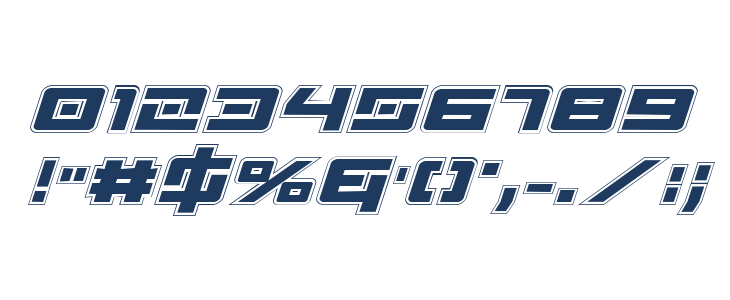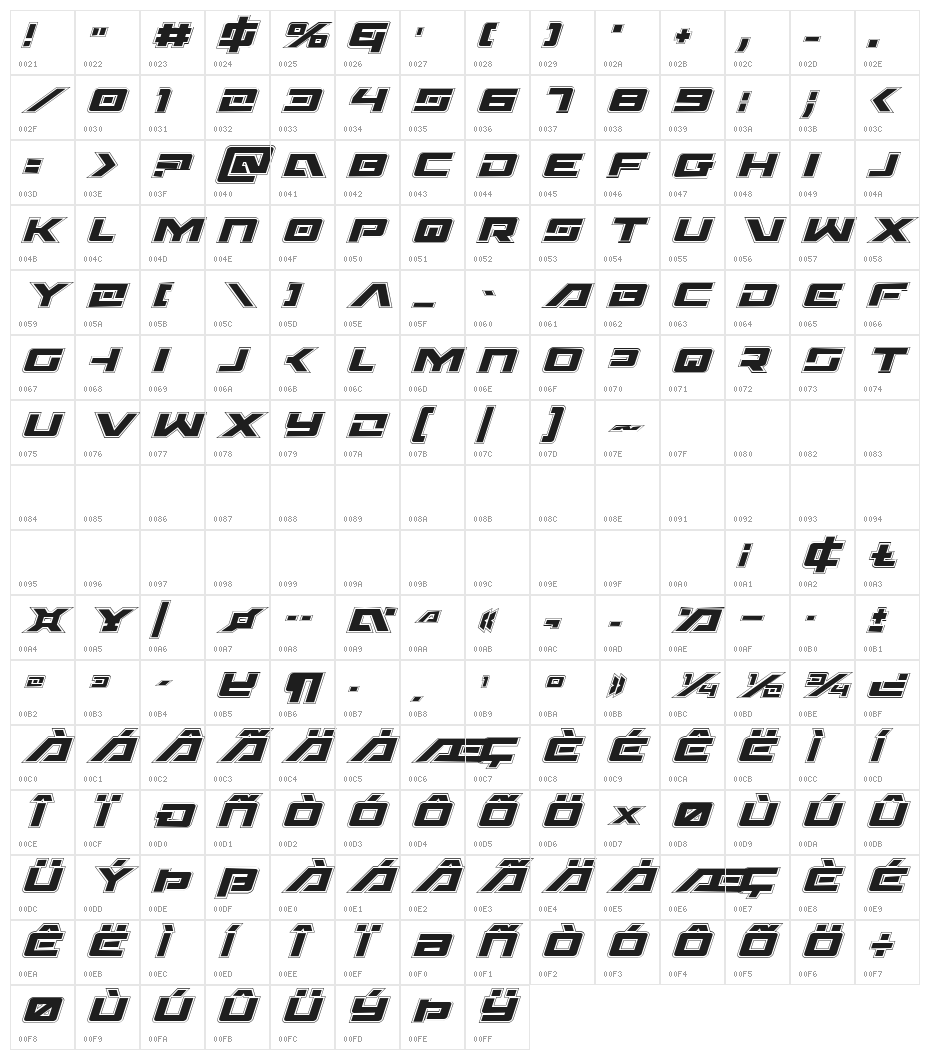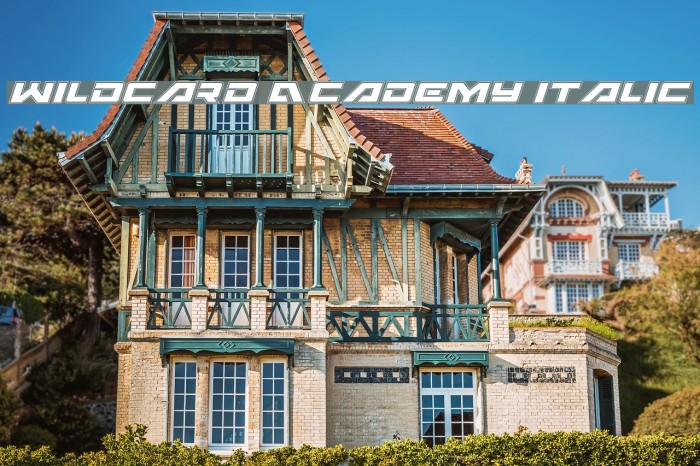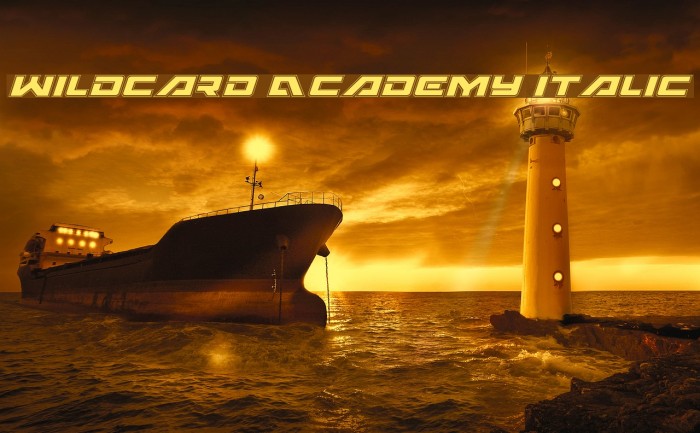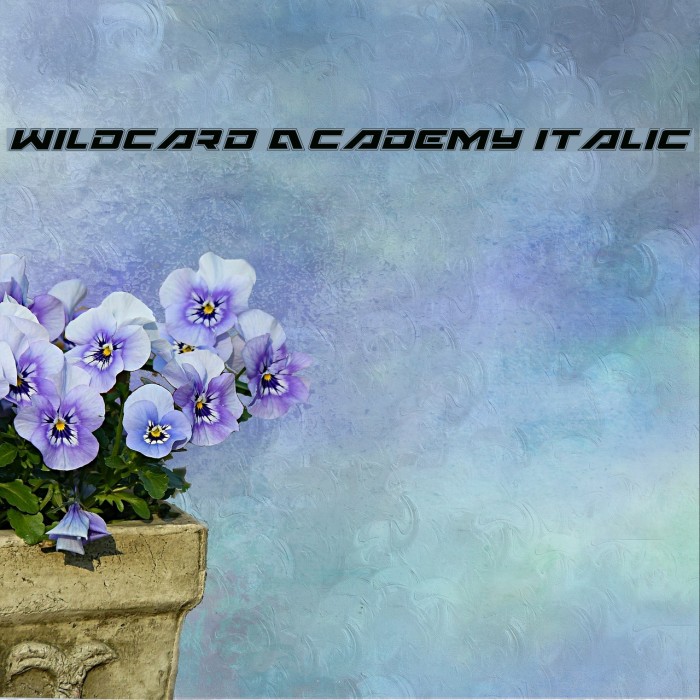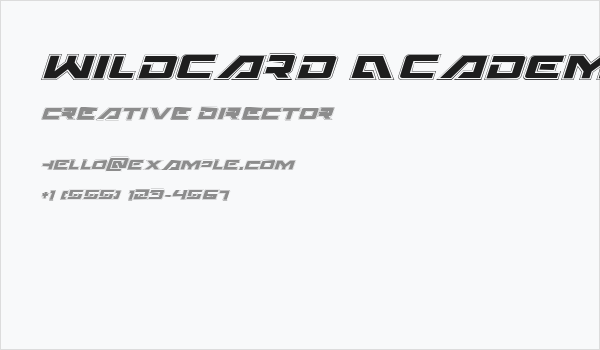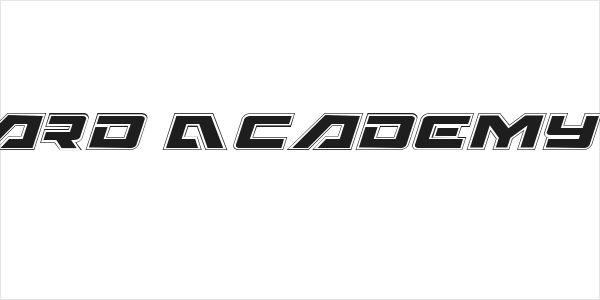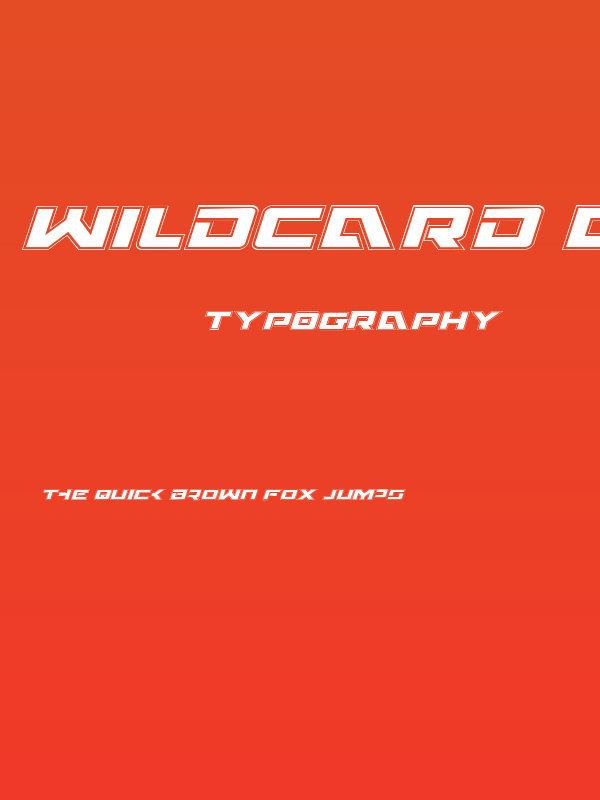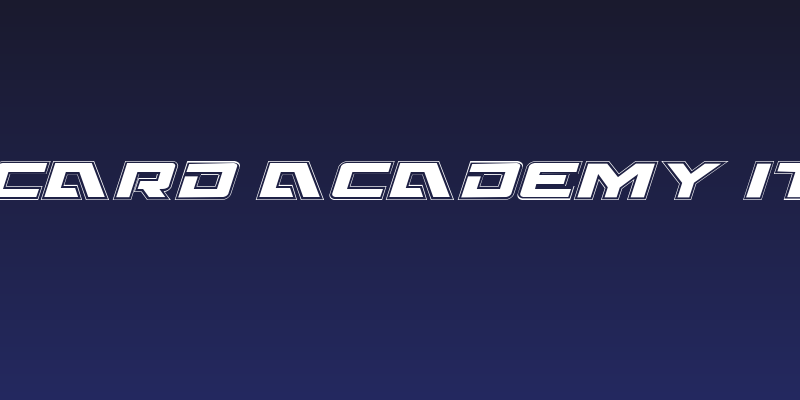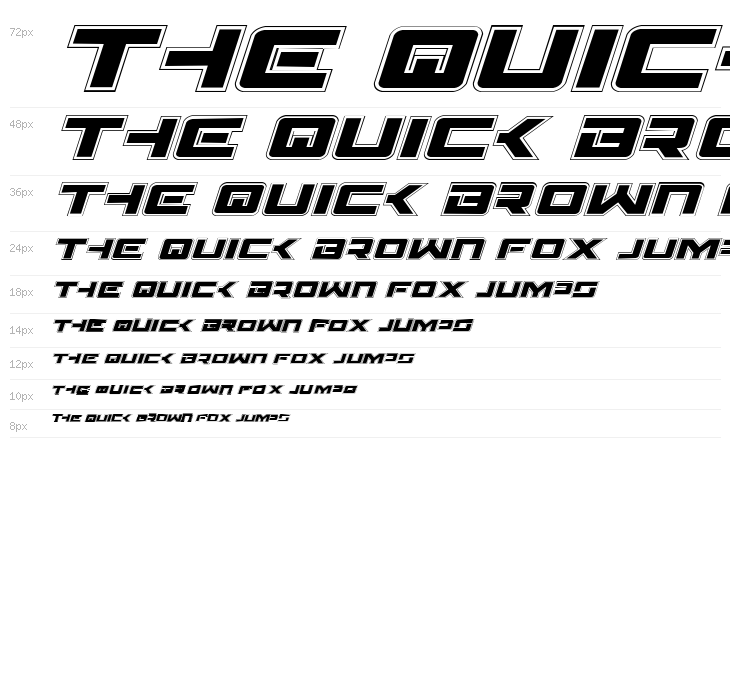
Wildcard Academy Italic Font
Wildcard Academy Italic Description
This font features a bold, futuristic design with a strong geometric influence. The characters are italicized, giving them a dynamic and forward-leaning appearance. The strokes are thick and consistent, with a high contrast between the filled and outlined areas. The angular shapes and sharp edges contribute to a modern, tech-inspired aesthetic. The spacing between characters is relatively tight, enhancing the compact and cohesive look of the text. This font is suitable for projects that require a bold and impactful visual statement.
| Proposed Projects | Ideal for technology branding, sci-fi themed posters, video game titles, and modern digital interfaces. |